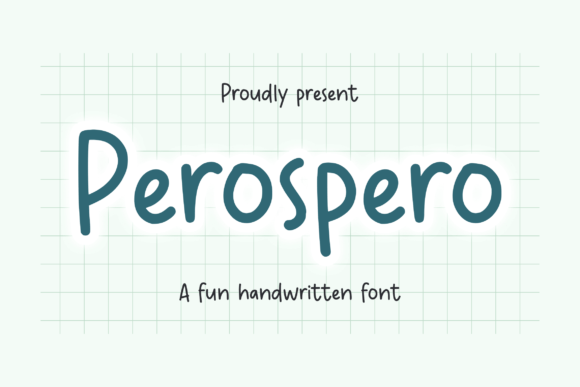
Prepare yourself to be captivated by Perospero, the ultimate handwritten typeface that exudes playfulness and warmth. This enchanting script font, crafted by the talented team at allouse.studio, brings a touch of whimsy and charm to any design project.
Immerse yourself in the world of Perospero, where creativity knows no bounds. Whether you seek elegance or a dash of playfulness, this versatile font delivers effortlessly. Its organic flow and distinctive character infuse your designs with a sense of authenticity and individuality.
With Perospero as your creative companion, unlock a world of design possibilities. Craft stunning logos and branding that capture the essence of your brand's story. Create eye-catching social media posts and marketing materials that leave an indelible impression. Let your imagination soar as you design invitations, greeting cards, and personal projects that radiate charm and delight.
Step into a realm where typography takes center stage. Perospero's carefully crafted glyphs dance across the page, creating a visual masterpiece that commands attention. Its innate ability to evoke emotions and establish connections makes it the perfect choice for crafting unforgettable user interfaces and digital experiences.
Elevate your web design projects to new heights with Perospero, the font that has earned its place among the Best Fonts for Web Design 2017. Its seamless integration with modern design trends ensures that your creations remain relevant and captivating.